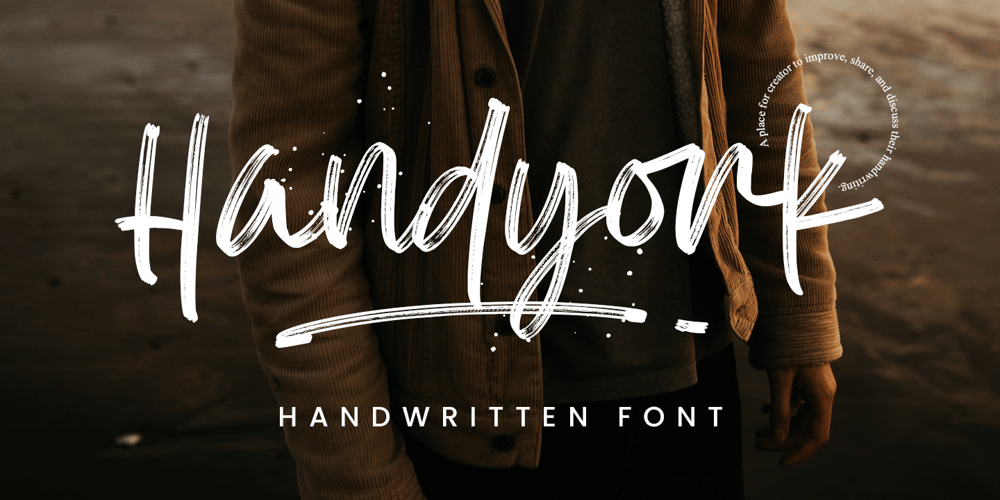
Handyork
Handyork font
Handyork Font Family was designed by Novitasari Romli and published by Novitype. Handyork contains 1 styles and family package options. Handyork is a textured brush font. With natural strokes and dynamic letter shapes, Handyork is perfect for enhancing your designs!This dry brush font is designed with an irregular baseline, providing a delightful experience when using it. It also comes with alternate characters, allowing you limitless creative possibilities!Ideal for modern designs such as fashion, branding, advertising, books, logos, cards, merchandise—whatever you can think of!What you’ll get : Uppercase Lowercase Numbers Punctuation Symbols Stylistic alternates Ligatures Multilingual support